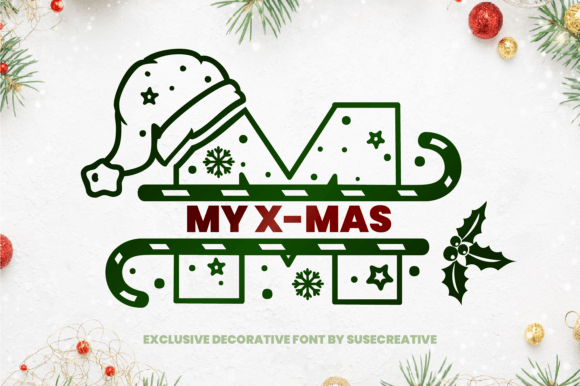
My X-mas Font: A Charming and Festive Typeface for Holiday Designs
As the holiday season approaches, designers and crafty enthusiasts alike start looking for the perfect typography to add a touch of festive cheer to their projects. If you’re on the hunt for a font that embodies the spirit of Christmas, look no further than My X-mas Font. This delightful typeface is specifically designed to bring joy and festivity to your holiday designs, making it an ideal choice for greeting cards, posters, social media posts, and more.
The Charm of My X-Mas Font
My X-mas Font is a charming and decorative typeface that boasts playful and intricate details. Its unique design is sure to capture the essence of the holiday season, adding a dash of whimsy and fun to any project. Whether you’re creating a festive greeting card, a holiday poster, or a social media post, this font is sure to make your design stand out from the crowd.
One of the standout features of My X-mas Font is its ability to evoke a sense of nostalgia and warmth. The font’s intricate details and ornate design elements are reminiscent of traditional holiday decorations, making it perfect for creating designs that feel cozy and inviting.
Perfect for Holiday Designs
My X-mas Font is specifically designed with holiday designs in mind. Its festive and playful vibe makes it an ideal choice for a wide range of projects, including:
- Greeting cards: Create beautiful and festive greeting cards that are sure to delight your friends and family.
- Posters: Design eye-catching posters that showcase your holiday spirit.
- Social media posts: Add a touch of holiday cheer to your social media posts and make them stand out from the crowd.
- Holiday crafts: Use My X-mas Font to add a personal touch to your holiday crafts, such as scrapbooking, DIY decorations, and more.
Key Features of My X-Mas Font
My X-mas Font boasts a range of key features that make it the perfect choice for holiday designs. Some of its standout features include:
- Playful and intricate details: The font’s unique design elements add a touch of whimsy and fun to any project.
- Festive and charming vibe: The font’s design is specifically tailored to evoke the spirit of Christmas and the holiday season.
- High-quality design: The font is designed to be clear and legible, making it perfect for use in a wide range of projects.
Tips for Using My X-Mas Font
To get the most out of My X-mas Font, here are a few tips to keep in mind:
- Experiment with different sizes and colors: Don’t be afraid to get creative with your font size and color choices to add visual interest to your design.
- Pair with complementary fonts: My X-mas Font pairs well with a range of other fonts, so don’t be afraid to experiment with different combinations.
- Use in combination with holiday graphics: My X-mas Font is perfect for use in combination with holiday graphics, such as snowflakes, holly, and more.
- Keep it simple: While My X-mas Font is a decorative font, it’s still possible to keep your design simple and elegant. Don’t be afraid to use white space to create a clean and visually appealing design.
My X-mas Font is a charming and festive typeface that’s perfect for adding a touch of holiday cheer to your designs. Its playful and intricate details make it ideal for a wide range of projects, from greeting cards and posters to social media posts and holiday crafts. With its high-quality design and ease of use, My X-mas Font is a must-have for any designer looking to create beautiful and festive holiday designs.